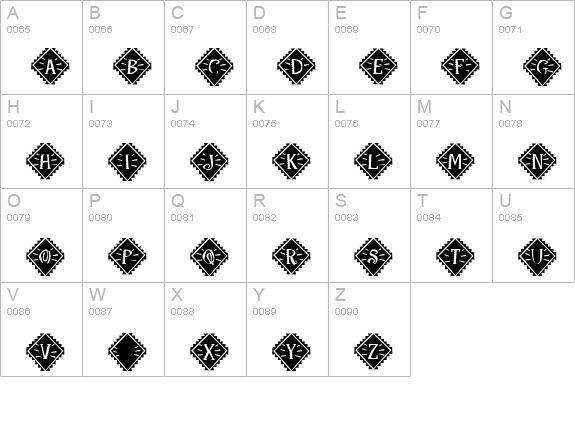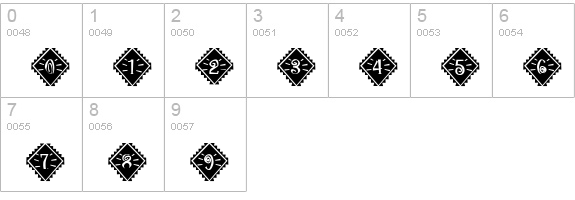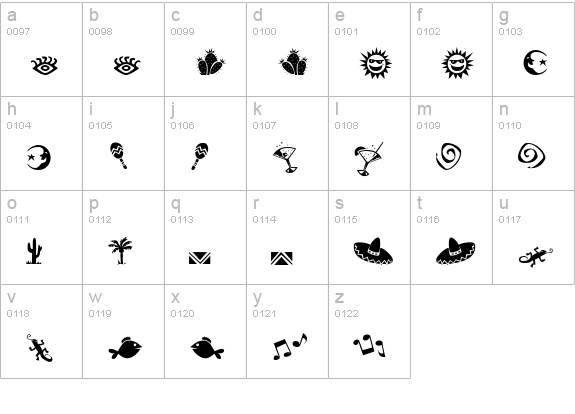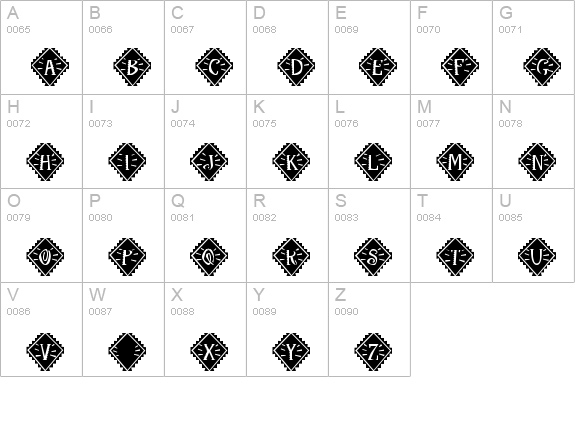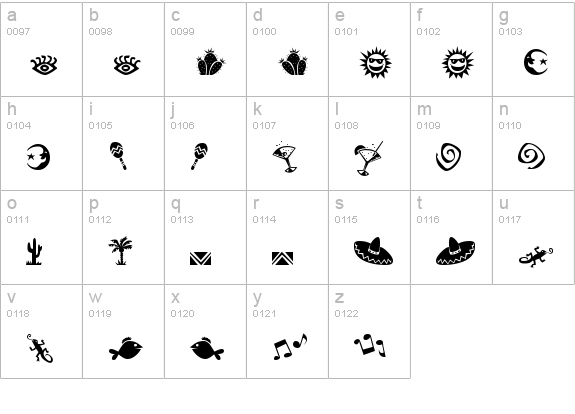
Maraca Extras Font Details
Maraca Extras font is a versatile and playful display font that adds a touch of whimsy to any design project. With its unique and hand-drawn style, this font is perfect for adding a fun and creative element to your designs. Whether you're designing a poster, a logo, or a social media graphic, Maraca Extras font will make your design stand out from the crowd. One of the best things about Maraca Extras font is that it is completely free to download. That's right, you can add this amazing font to your collection without spending a dime. It's freely available to download at FontsMarket.com, a trusted source for high-quality fonts. So, whether you're a professional designer or just someone who loves experimenting with typography, you can enjoy the benefits of this font without breaking the bank. Maraca Extras font offers a wide range of unique and eye-catching characters, including decorative elements, doodles, and illustrations. These extras can be used to enhance your designs and add that extra touch of creativity. Whether you want to create a custom border or add some fun illustrations to your text, Maraca Extras font has got you covered. In addition to its playful character set, Maraca Extras font also offers a variety of weights and styles to choose from. From light and delicate to bold and impactful, you can find the perfect variation to suit your design needs. This font is also incredibly easy to use, with its user-friendly OpenType features that allow for seamless integration into any design software. So, if you're looking to add a fun and creative element to your designs, look no further than Maraca Extras font. It's freely available to download at FontsMarket.com, so you can start incorporating this amazing font into your designs today. Don't miss out on the opportunity to elevate your design projects with this versatile and playful font.